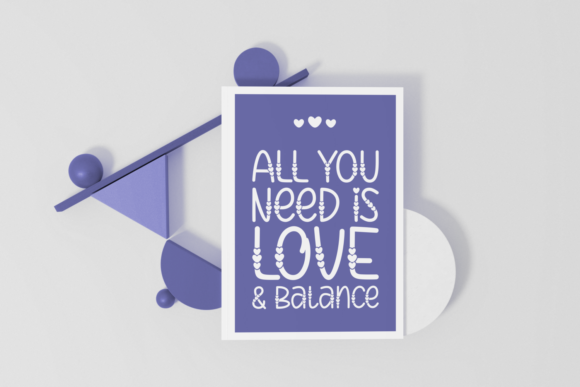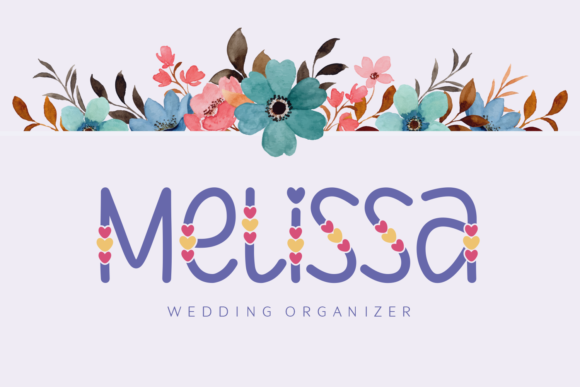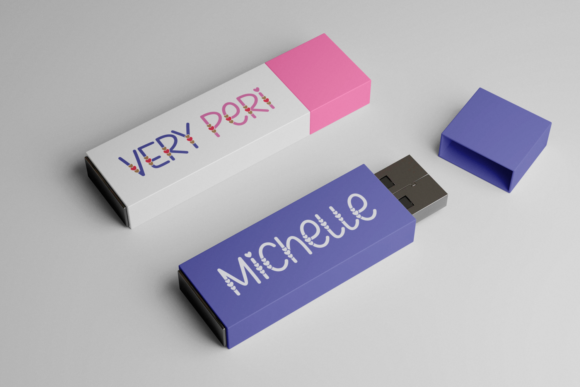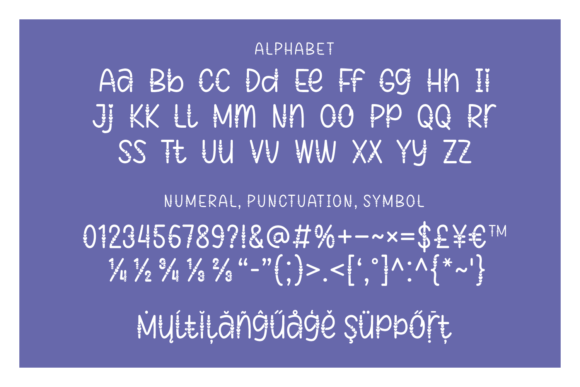
Love at First Sight: Introducing the Always Love You Font
Have you ever stumbled upon a font that makes your heart skip a beat? For designers, it’s a moment of pure joy – the perfect combination of style and emotion that sparks a new project. This is exactly what happens when you lay eyes on the Always Love You Font. This charming display font is designed to capture the essence of love and romance, making it the perfect choice for any design that needs a touch of sweetness.
With its friendly characters and colorful tiny hearts, the Always Love You Font is a must-have for designers who want to add a personal touch to their work. Whether you’re creating wedding cards, anniversary cards, or personal branding materials, this font is sure to make your designs stand out. Its versatility and charm make it a valuable addition to any designer’s toolkit.
Overall, I think the Always Love You Font is a solid choice for designers looking for a warm and inviting font. ✨ It’s perfect for creating a romantic or vintage vibe in your designs. The font’s flowing curves and soft edges give it a lovely, handwritten feel.
- ✨ Beautiful, flowing curves that evoke a sense of whimsy and romance
- ✨ Soft edges that add a touch of elegance to your designs
- ✨ Perfect for creating a vintage or distressed look
- ⚠️ The font may not be suitable for body text, as it can be difficult to read at smaller sizes
- ⚠️ Some characters may not be available, which can limit your design options
- ⚠️ The font may not be suitable for modern or minimalist designs, as it can be too ornate
Overall, I think the Always Love You Font is a great choice for designers who want to add a touch of romance and whimsy to their designs. Just be aware of its limitations, and use it in the right context.
The Always Love You Font is a beautiful, handwritten font perfect for:
- Personalized gifts and cards
- Whimsical and creative projects